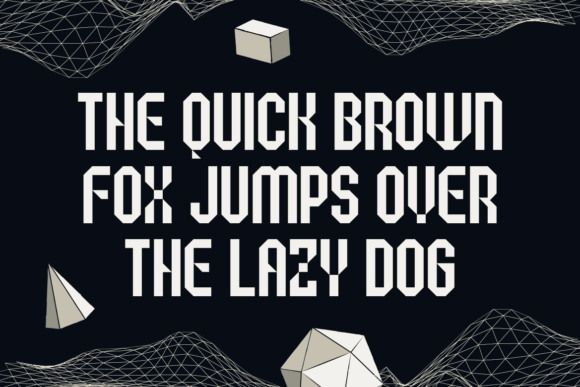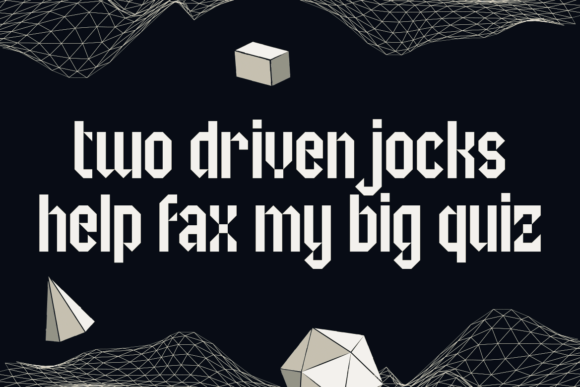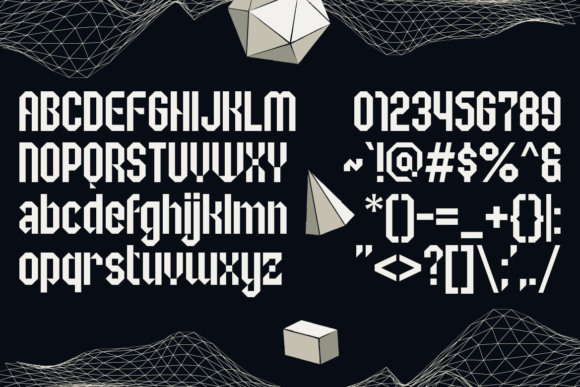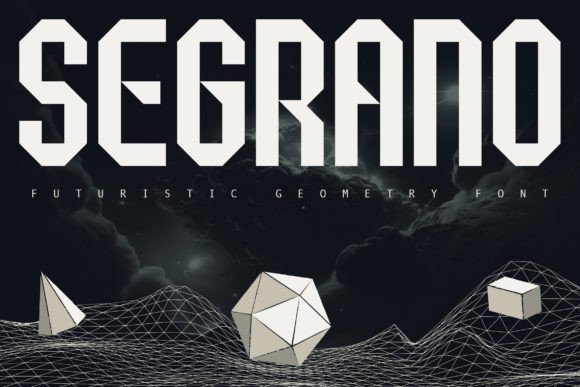
Introduction to Segrano Font
Unleash your imagination with geometric-based shapes and futuristic vibes offered by Segrano.
this font empowers you to explore endless possibilities and express your creativity in ways that push the boundaries of conventional design With Segrano font, your designs will effortlessly embody the essence of tomorrow.
Key Features of Segrano Font